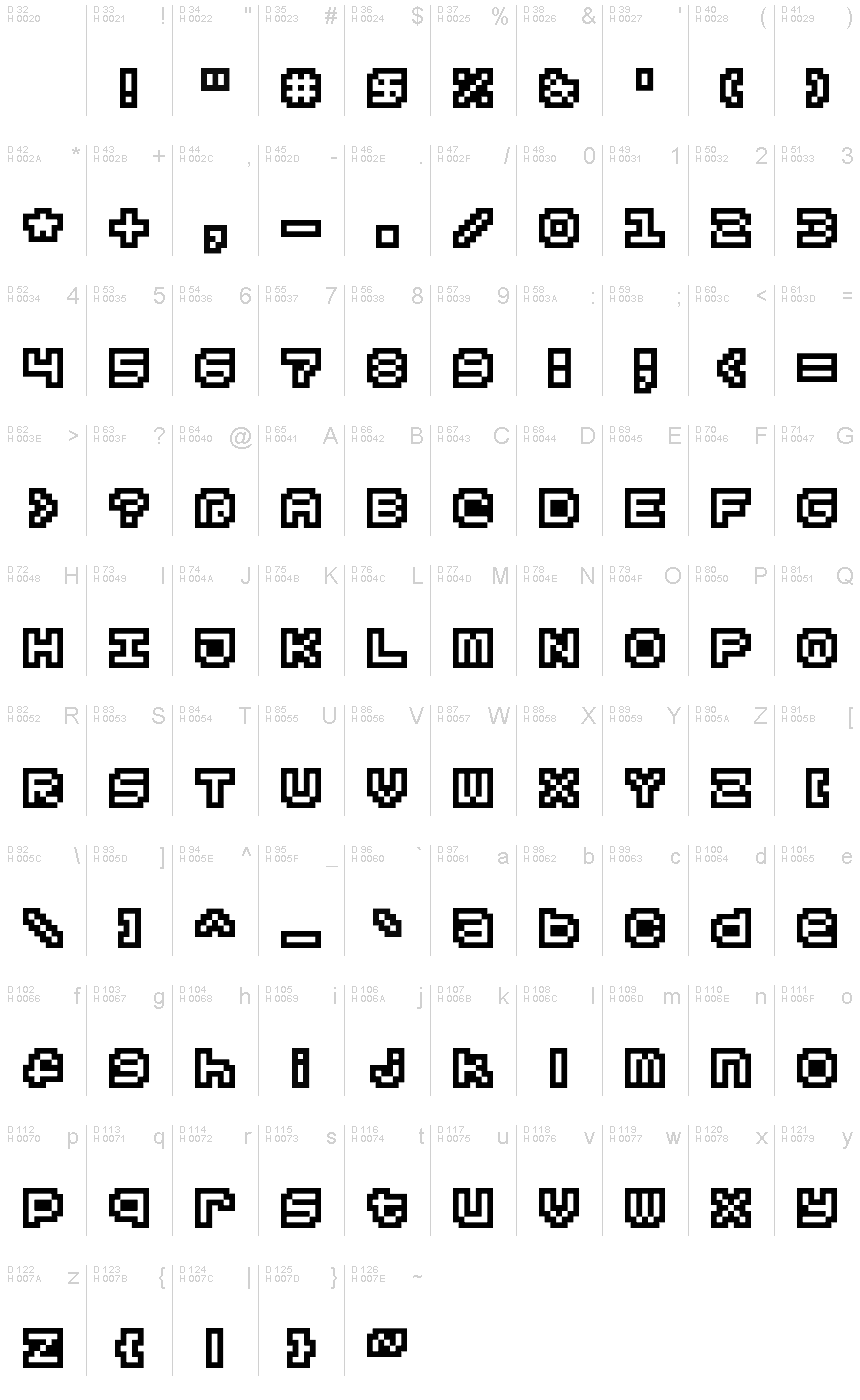
Domino Farm Regular
Designer description: A 7x7 outline design which is made to form solid-looking masses from the glyphs while still allowing the outer perimeters of words to take on some unique shapes.
Original size: 5.25pt (use multiples of this value for pixel perfection)